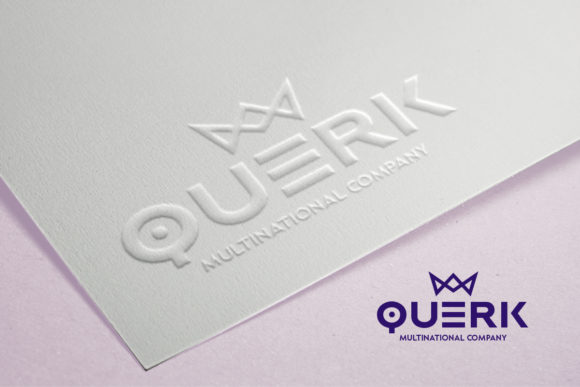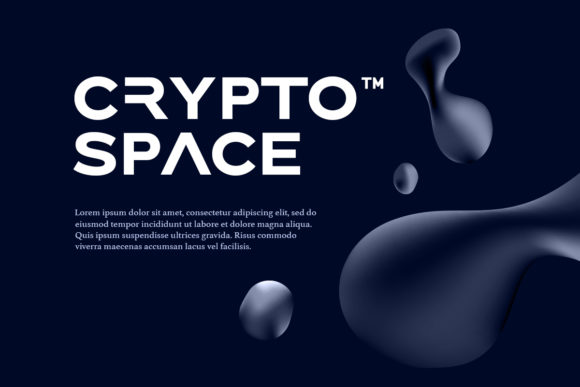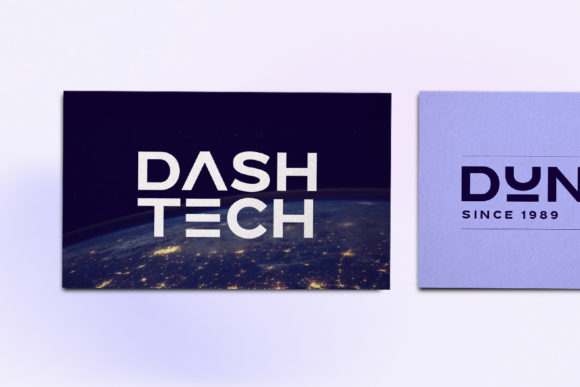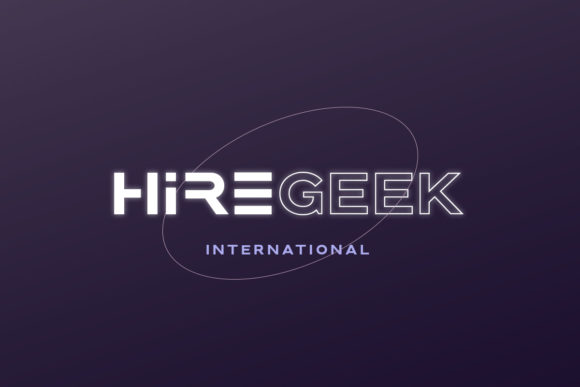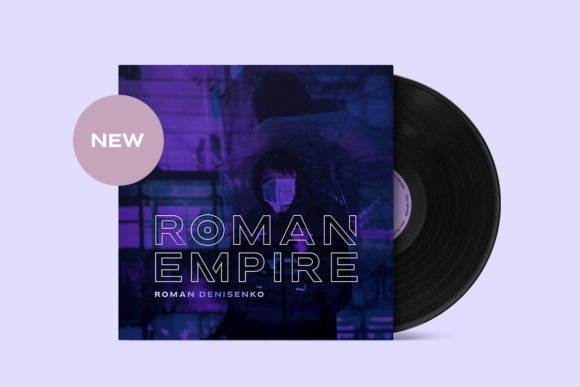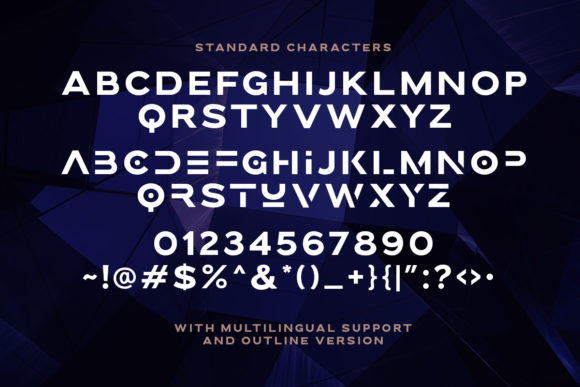
Brolink Font: The Ultimate Modern Display Font for Designers
In the world of typography, fonts play a crucial role in making or breaking a design. With thousands of fonts available, it can be overwhelming to choose the perfect one for your project. However, if you’re looking for a cool, modern, and techno display font that adds a unique touch to your designs, look no further than Brolink Font. In this article, we’ll dive into the features, benefits, and uses of Brolink Font, making it a must-read for designers and crafters.
What is Brolink Font?
Brolink Font is a modern display font designed to make a statement. Its sleek and futuristic design makes it perfect for projects that require a techno edge. The font features clean lines, sharp edges, and a bold aesthetic that commands attention. Whether you’re designing a website, business card, or any other visual material, Brolink Font is sure to impress.
Key Features of Brolink Font
- Modern and Techno Design: Brolink Font boasts a modern and techno design that’s perfect for projects that require a cutting-edge look.
- Unique and Exclusive: The font’s unique design ensures that your project stands out from the crowd, making it ideal for designers who want to create something exclusive.
- Highly Versatile: Brolink Font is highly versatile and can be used for a wide range of projects, from web designs to business cards, posters, and more.
- Easily Readable: Despite its bold design, Brolink Font is easily readable, making it perfect for projects that require both style and substance.
Benefits of Using Brolink Font
So, why should you choose Brolink Font for your next project? Here are some benefits of using this amazing font:
- Adds a Professional Touch: Brolink Font adds a professional touch to your designs, making them look more polished and sophisticated.
- Enhances Creativity: The font’s unique design encourages creativity and experimentation, allowing you to push the boundaries of your designs.
- Saves Time: With Brolink Font, you can create stunning designs in no time, saving you hours of work and effort.
Use Cases for Brolink Font
Brolink Font is an incredibly versatile font that can be used for a wide range of projects. Here are some use cases to get you started:
- Web Designs: Use Brolink Font to create stunning website headers, titles, and buttons that grab attention.
- Business Cards: Add a professional touch to your business cards with Brolink Font, making them stand out from the crowd.
- Posters and Flyers: Create eye-catching posters and flyers with Brolink Font, perfect for promoting events, products, or services.
- Logos and Branding: Use Brolink Font to create unique logos and branding materials that reflect your company’s personality.
- What is Brolink Font? Brolink Font is a modern display font designed for projects that require a techno edge.